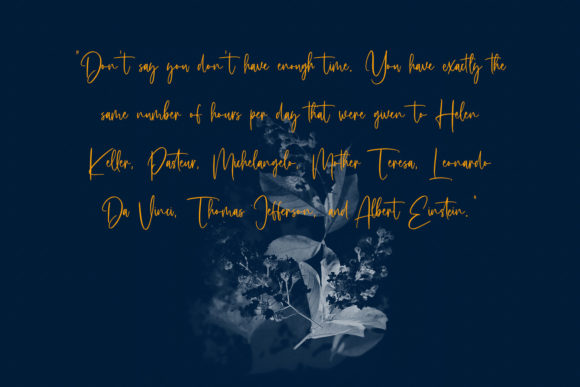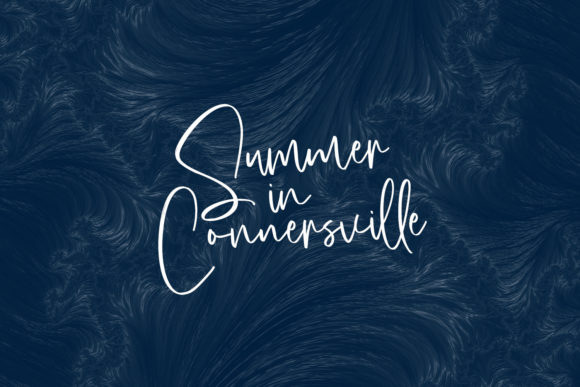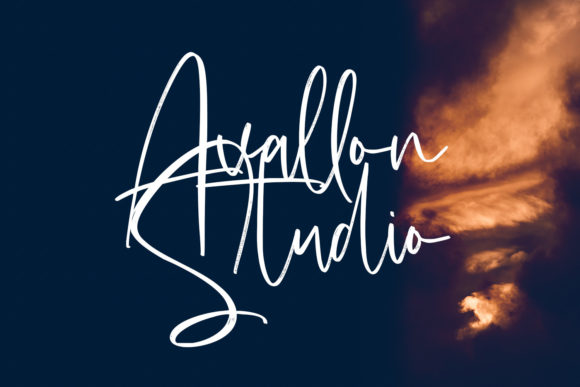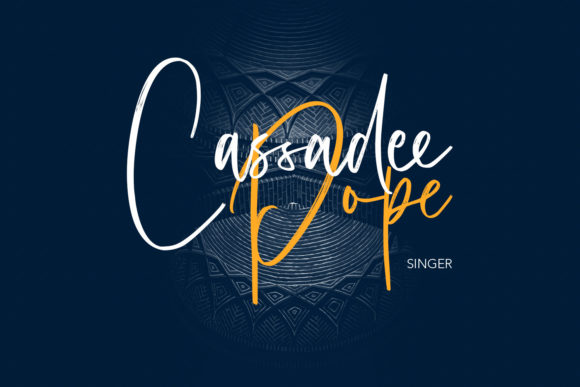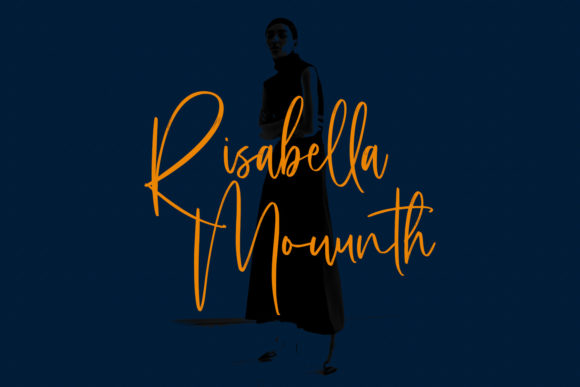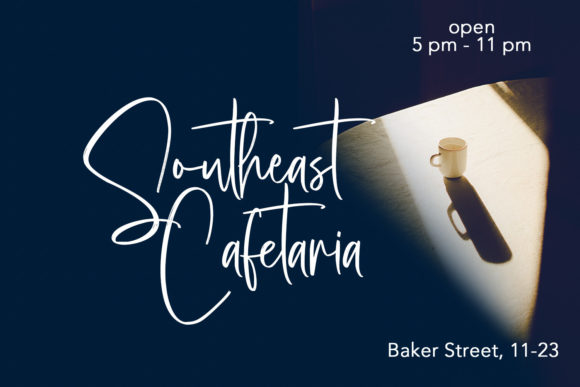
The Perfect Script for Your Next Design Project
Have you ever been brainstorming a new project, pouring over sketches and ideas, only to feel like something is missing? A spark of creativity hits, and you envision a beautiful, handcrafted script font that perfectly captures the essence of your design. This is where Astavilla Script Font comes in – a relaxed and adaptable script font designed to bring a touch of elegance and sophistication to your work.
Astavilla Script Font is more than just a font; it’s a tool for designers who want to create stunning, memorable designs that stand out from the crowd. With its beautiful, refreshing look, it’s perfect for those who need a little extra flair in their designs. Whether you’re working on a branding project, creating a logo, or designing a marketing campaign, Astavilla Script Font is an invaluable asset in your design toolkit.
Astavilla Script Font Key Features
- Unique Characteristics: Astavilla Script Font is a elegant and luxurious script font with a mix of modern and classic elements, making it perfect for various design projects.
- Font Style: Astavilla Script Font comes in Regular and Italic styles, providing versatility for different design needs.
- Language Support: Supports a wide range of languages, including Latin, Greek, and Cyrillic scripts, making it suitable for global design projects.
Astavilla Script Font Review
Overall, I think Astavilla Script Font is a beautiful and elegant font that works well for a variety of purposes, from invitations to logo designs. ✨ The flowing lines and cursive script style give it a personal and artistic feel that’s perfect for creative projects. ✨ I also appreciate the wide range of language support, making it a great choice for global projects.
One of the things I like most about Astavilla Script Font is its versatility. ✨ It comes in a range of weights and styles, from light to bold, and even a script and handwritten version. This makes it easy to use in a variety of contexts, from headings to body text.
- Beautiful, elegant script style
- Wide range of language support
- Multiple weights and styles available
- Perfect for creative projects like invitations and logo designs
- May not be suitable for body text due to its cursive style
- Not ideal for large blocks of text
- May be difficult to read at very small font sizes
Overall, I would give Astavilla Script Font 4 out of 5 stars. While it has some limitations, its beauty and versatility make it a great choice for creative projects. With a little planning and consideration, you can use this font to create stunning designs that make a lasting impression.
Astavilla Script Font: A Practical Application Guide
Tips for Getting the Most Out of Astavilla Script Font
Experiment with different font sizes and colors to create visual interest. Use it in combination with other fonts to create a unique and eye-catching design. Pay attention to the spacing between lines and words to ensure the text is easy to read.
Astavilla Script Font is perfect for creating:
- Invitations and event graphics
- Social media graphics and posts
- Posters and flyers
- Wedding and birthday cards